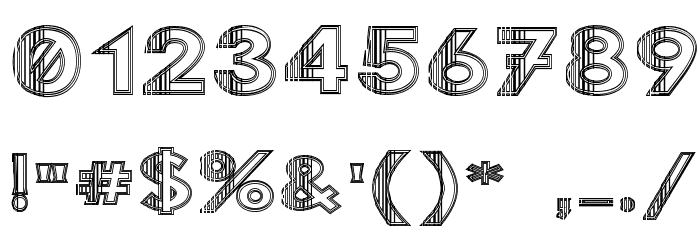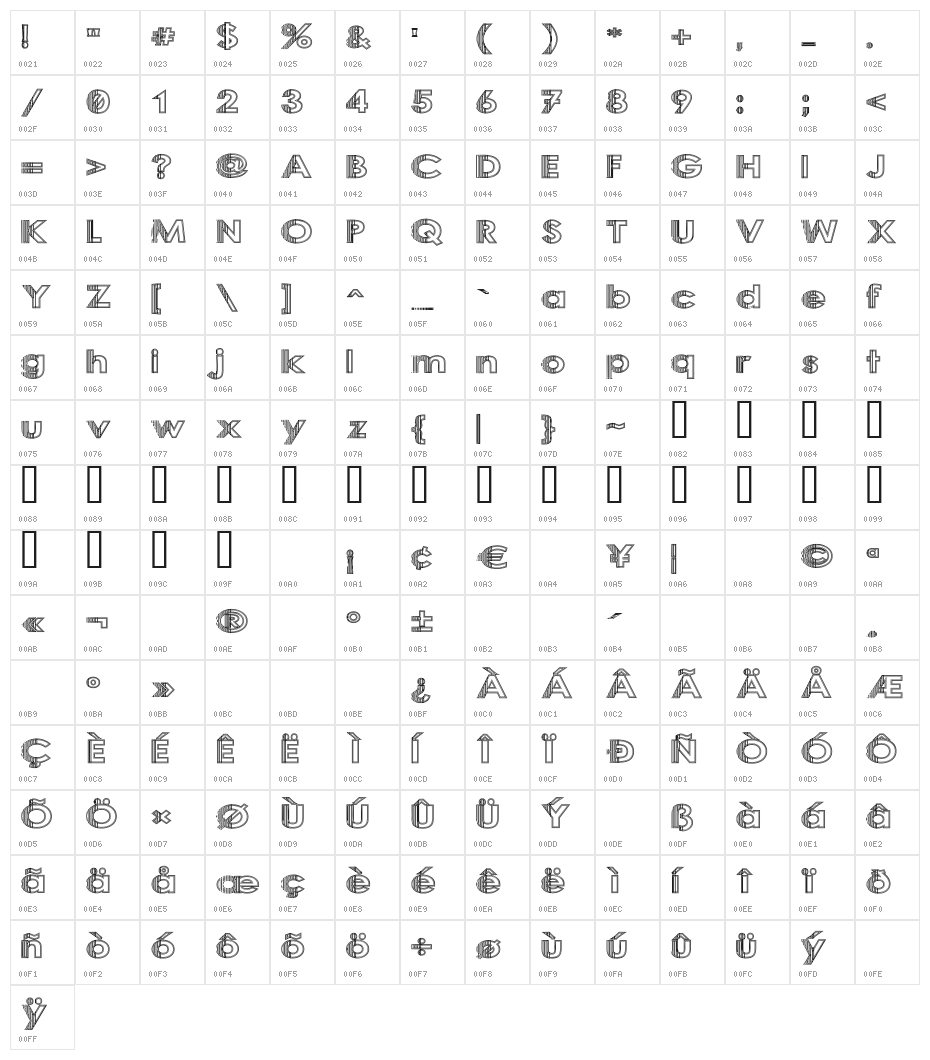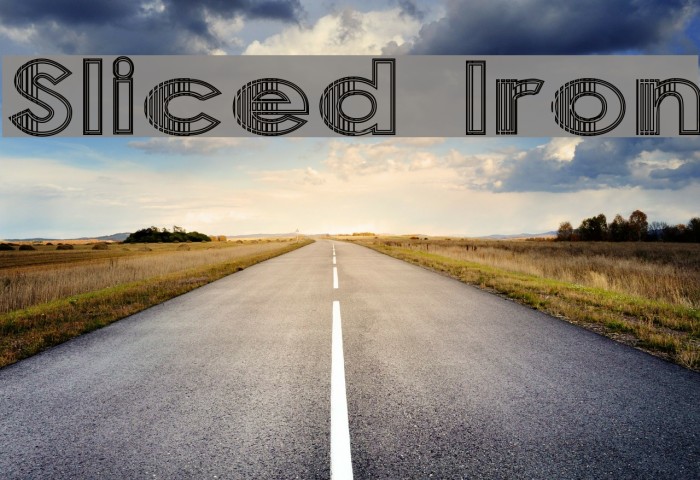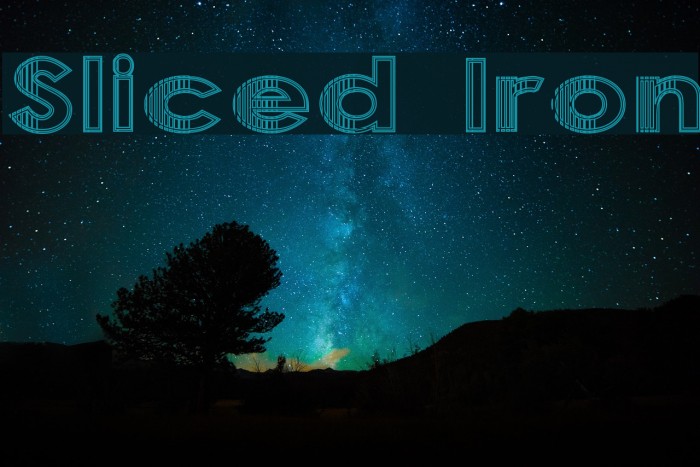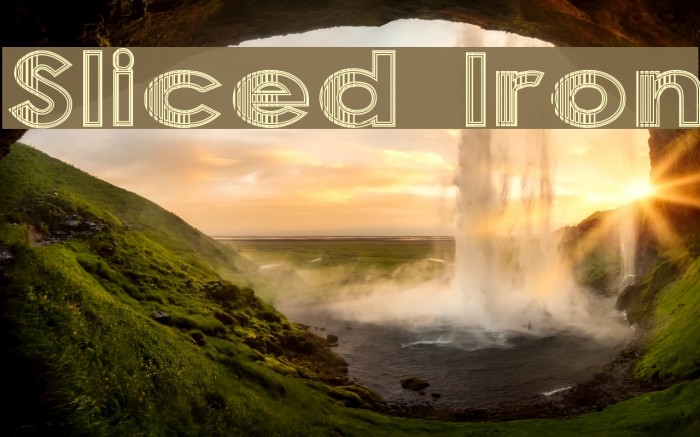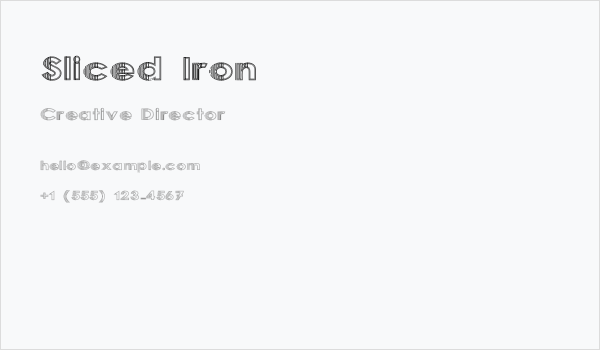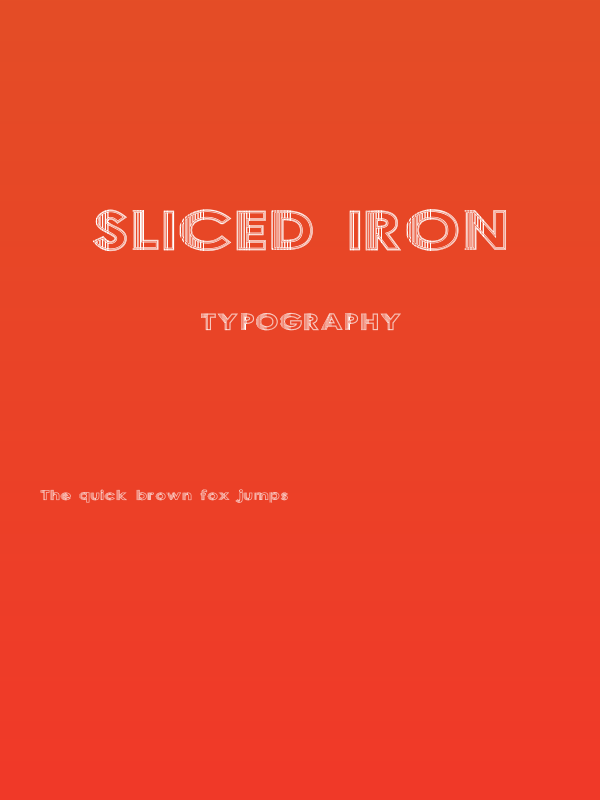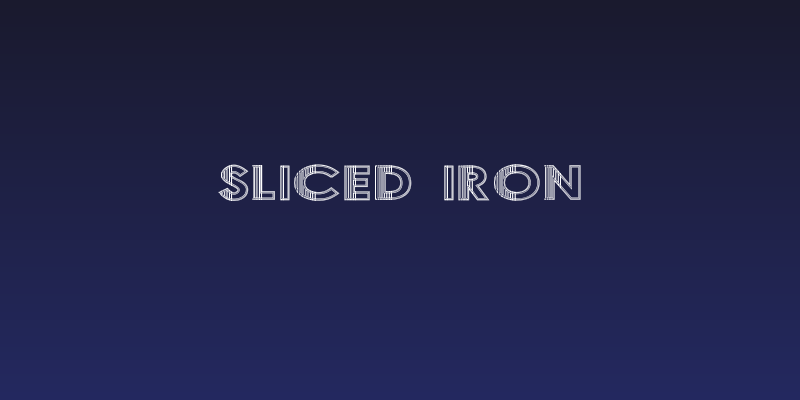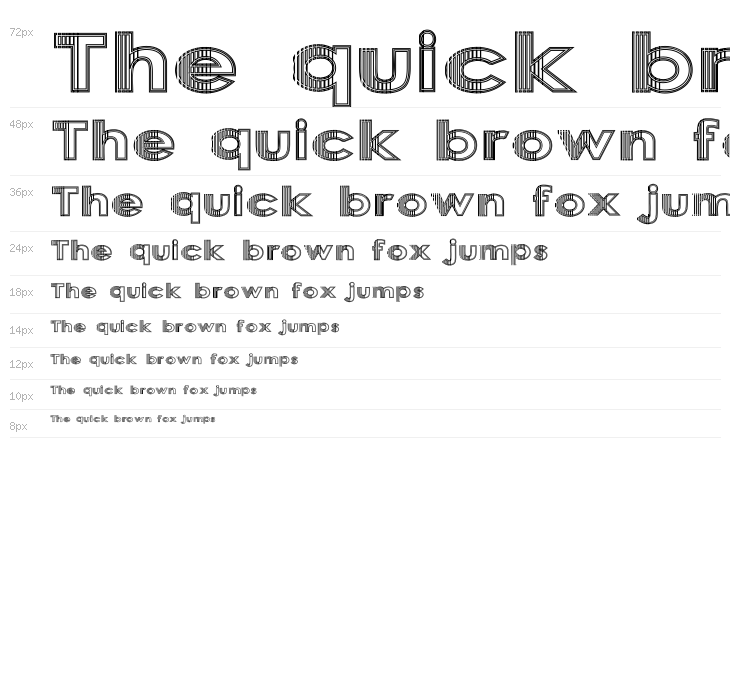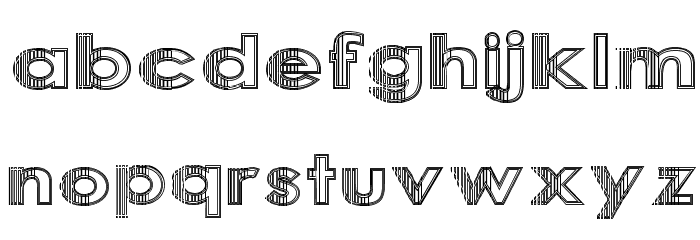
Sliced Iron Font
Sliced Iron Description
This font features a unique, industrial design with a sliced, layered appearance. Each character is composed of multiple parallel lines, creating a sense of depth and texture. The geometric structure is consistent across uppercase, lowercase, numbers, and special characters, giving it a cohesive look. The font's bold and striking style makes it ideal for attention-grabbing headlines or logos. Its distinct appearance is reminiscent of mechanical or architectural elements, making it suitable for projects that require a modern, edgy aesthetic.
| Proposed Projects | Ideal for branding, posters, album covers, and any project needing a modern, industrial touch. |